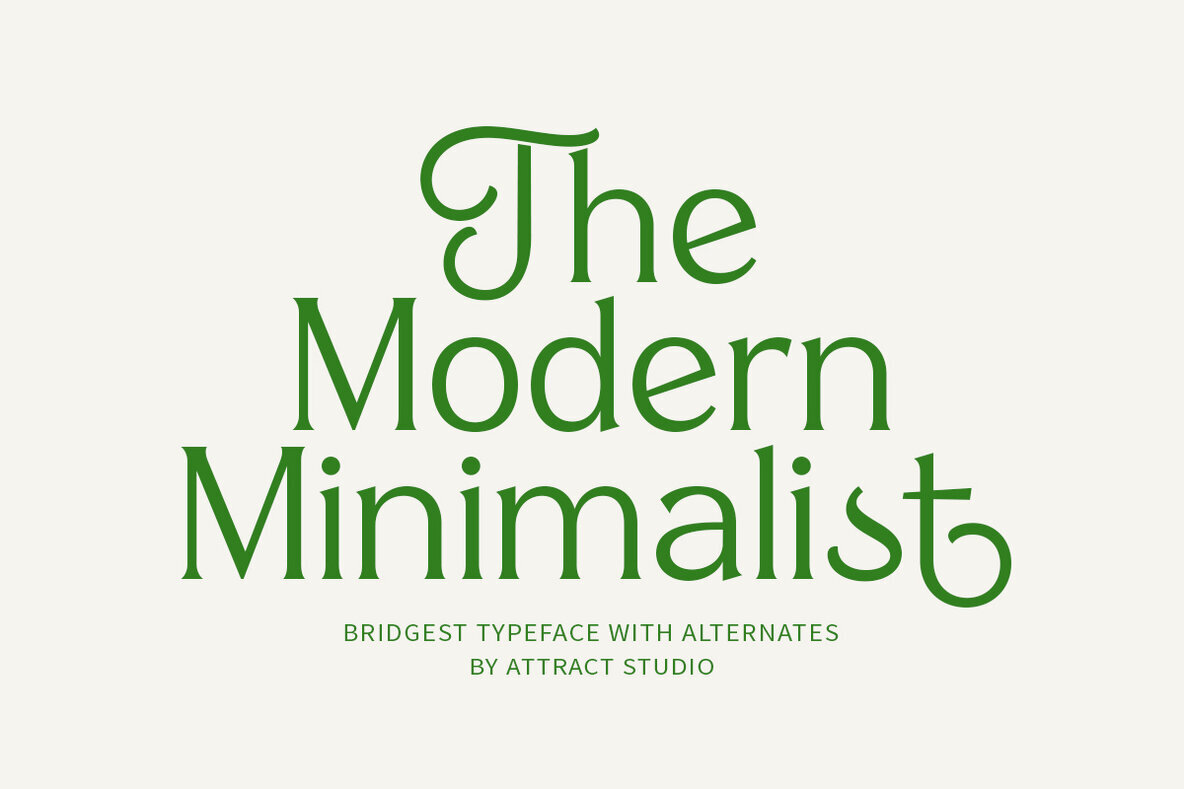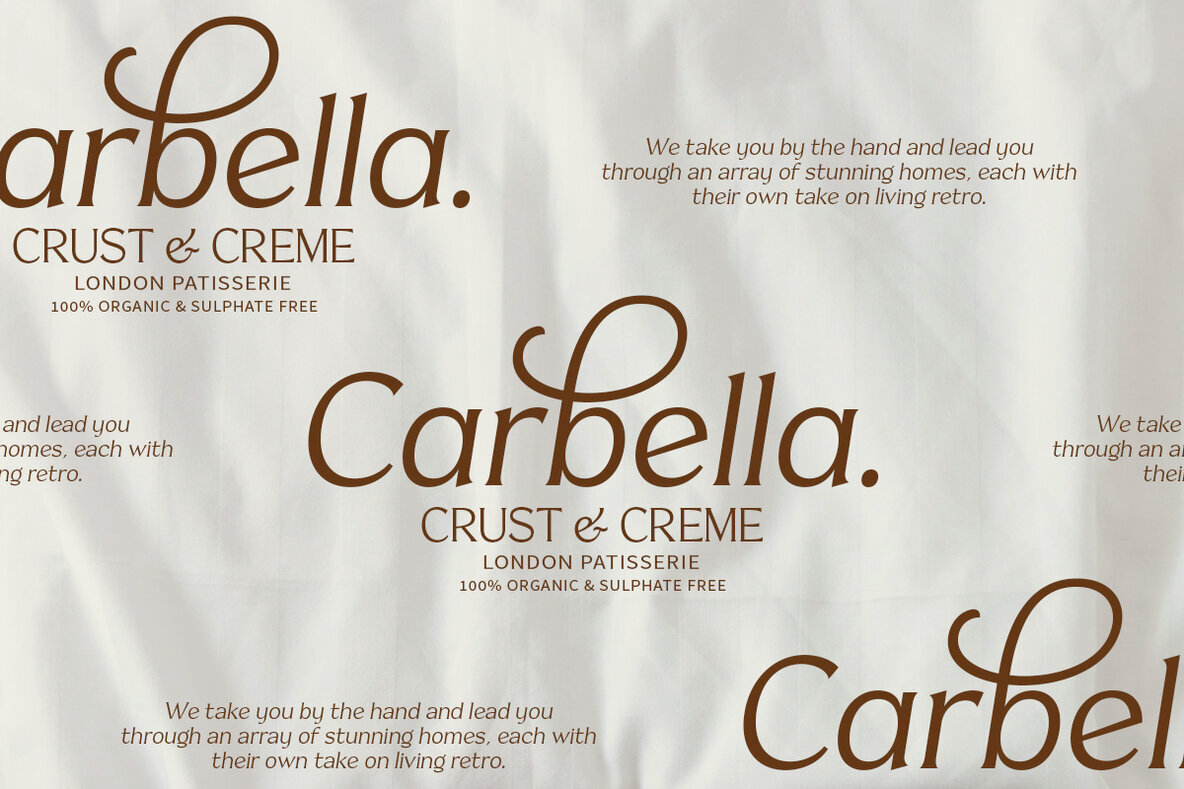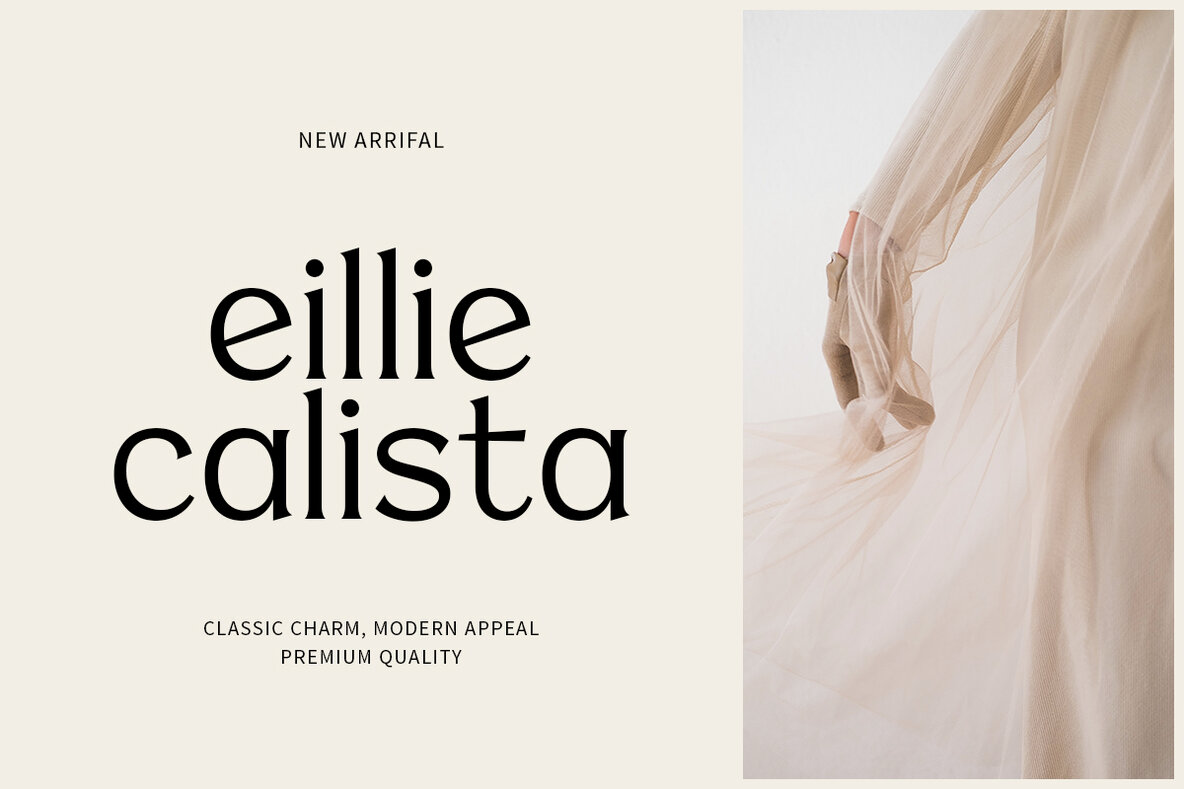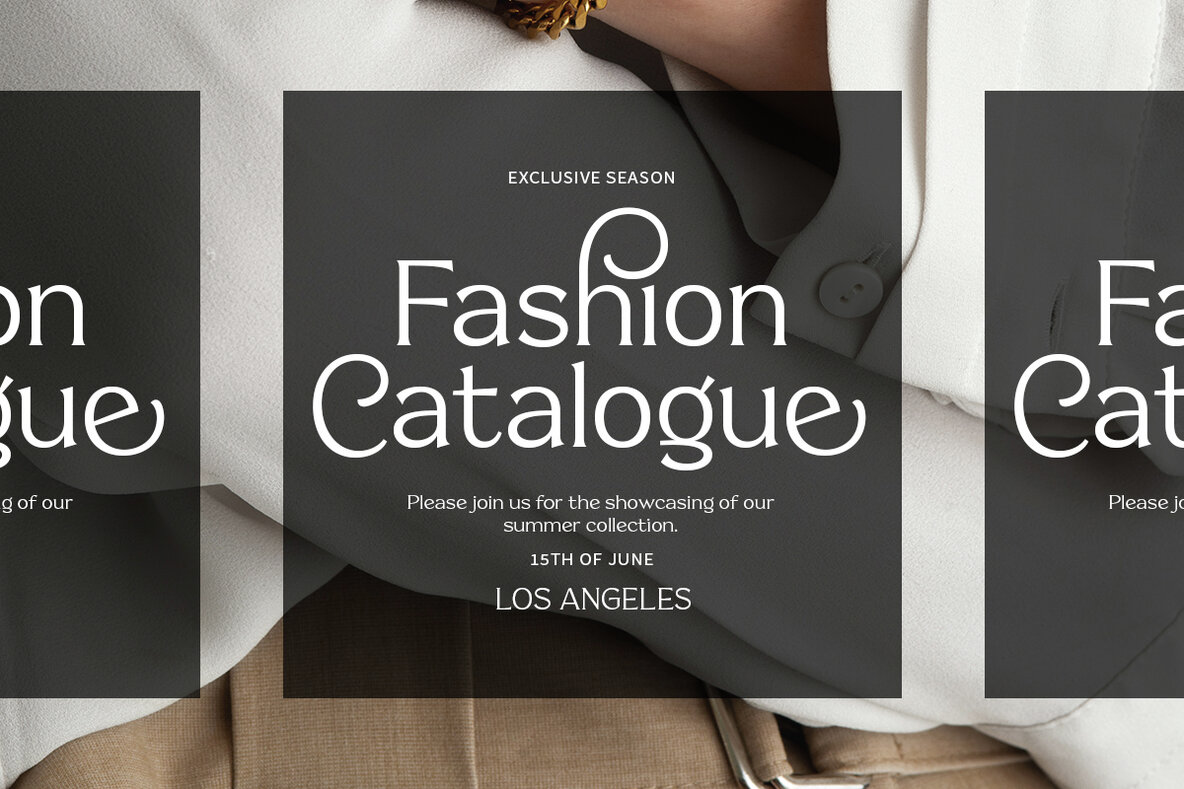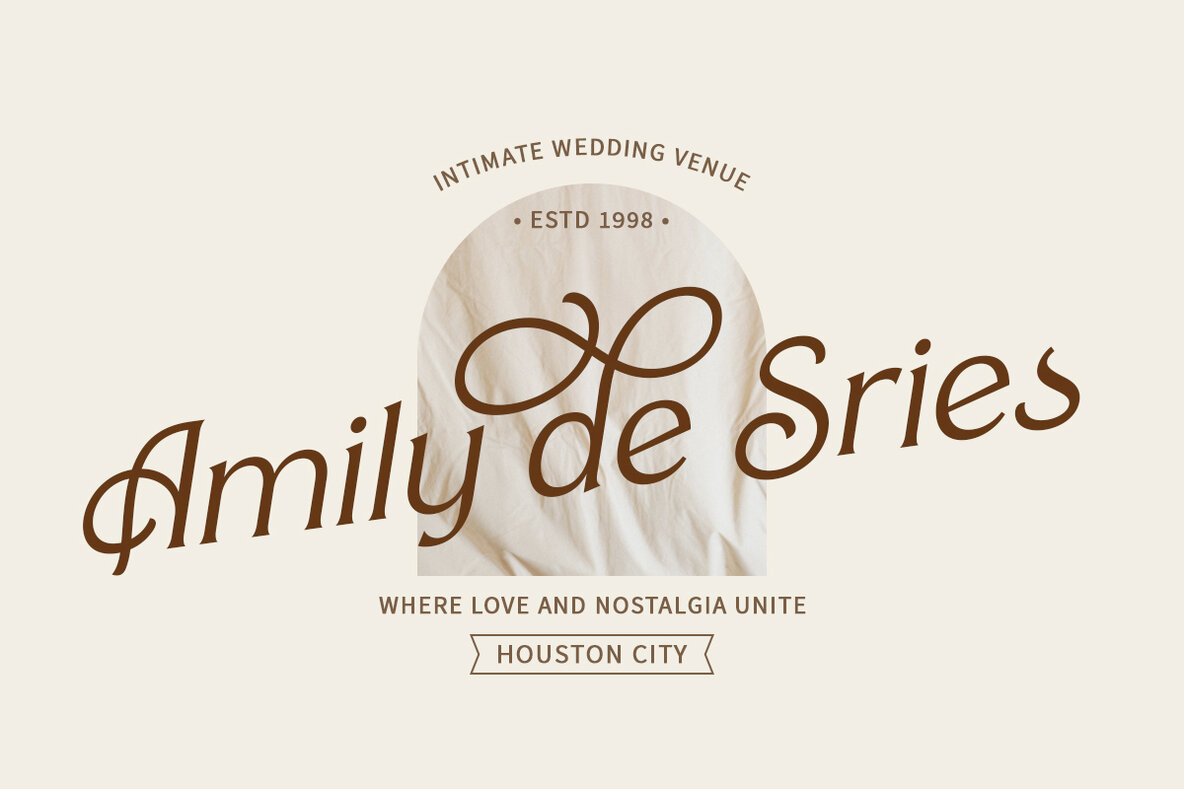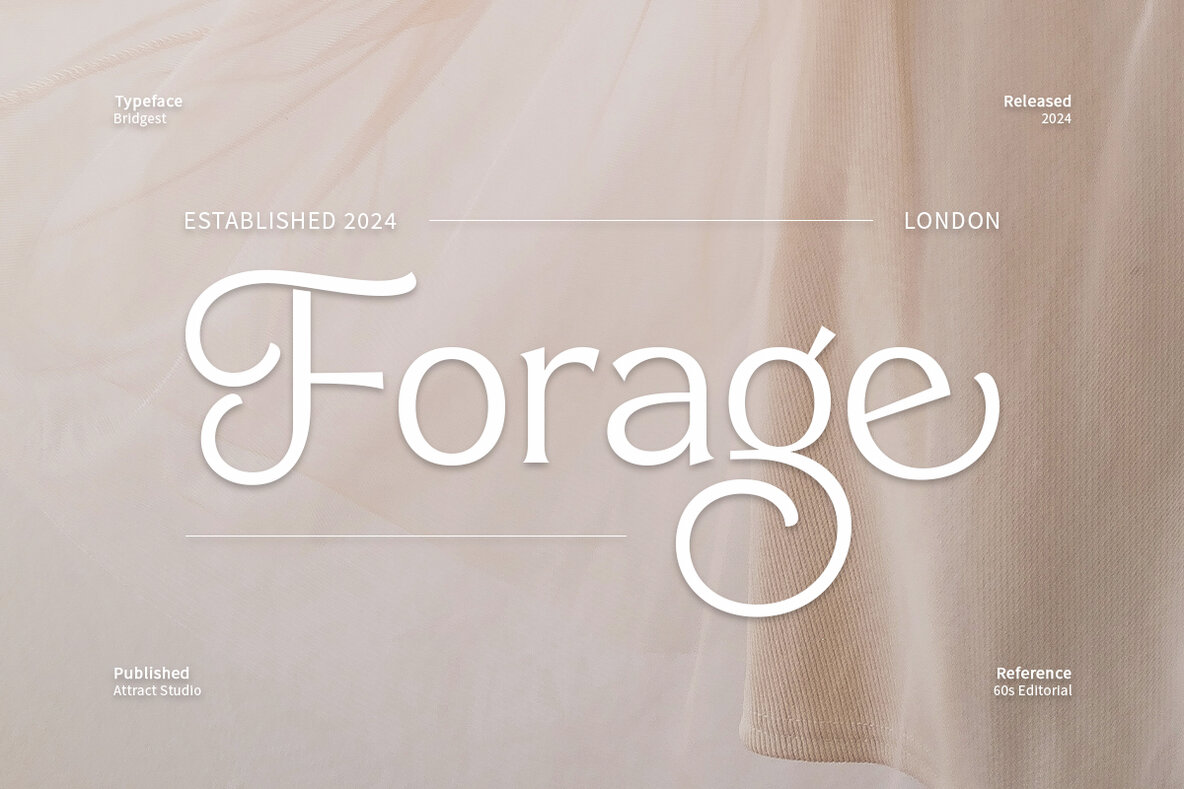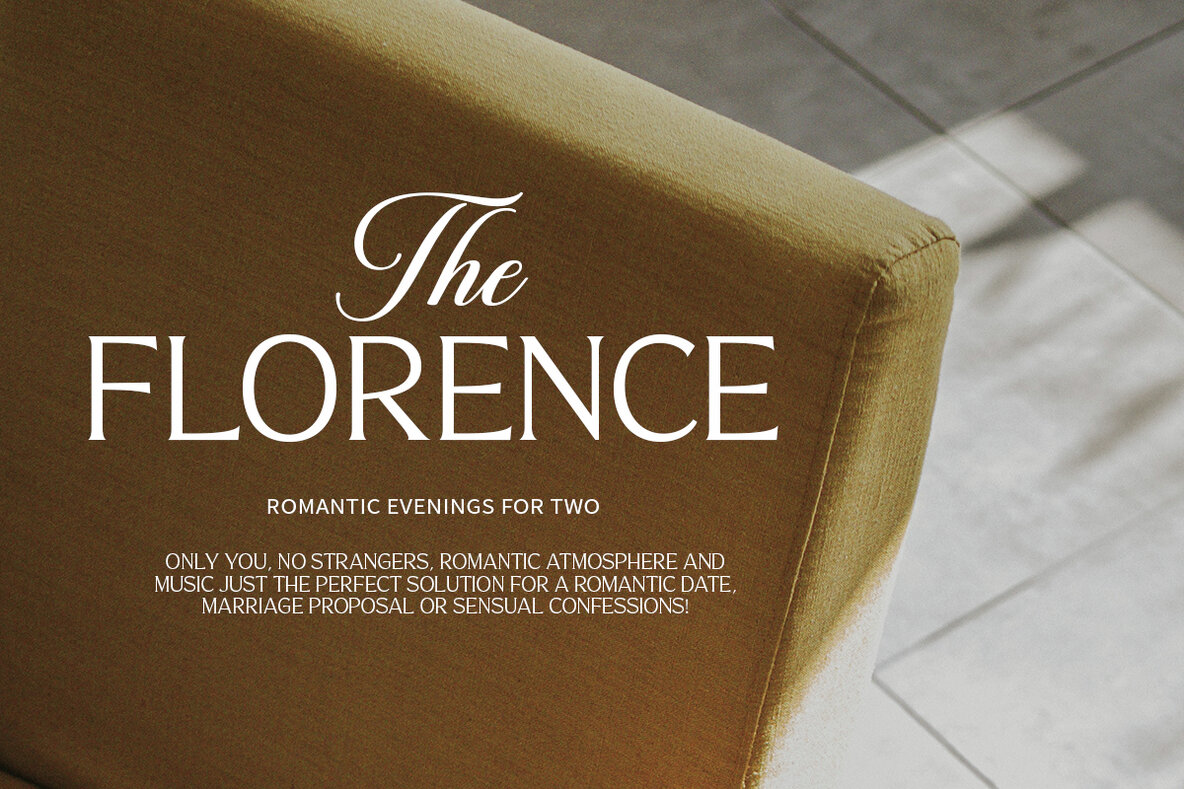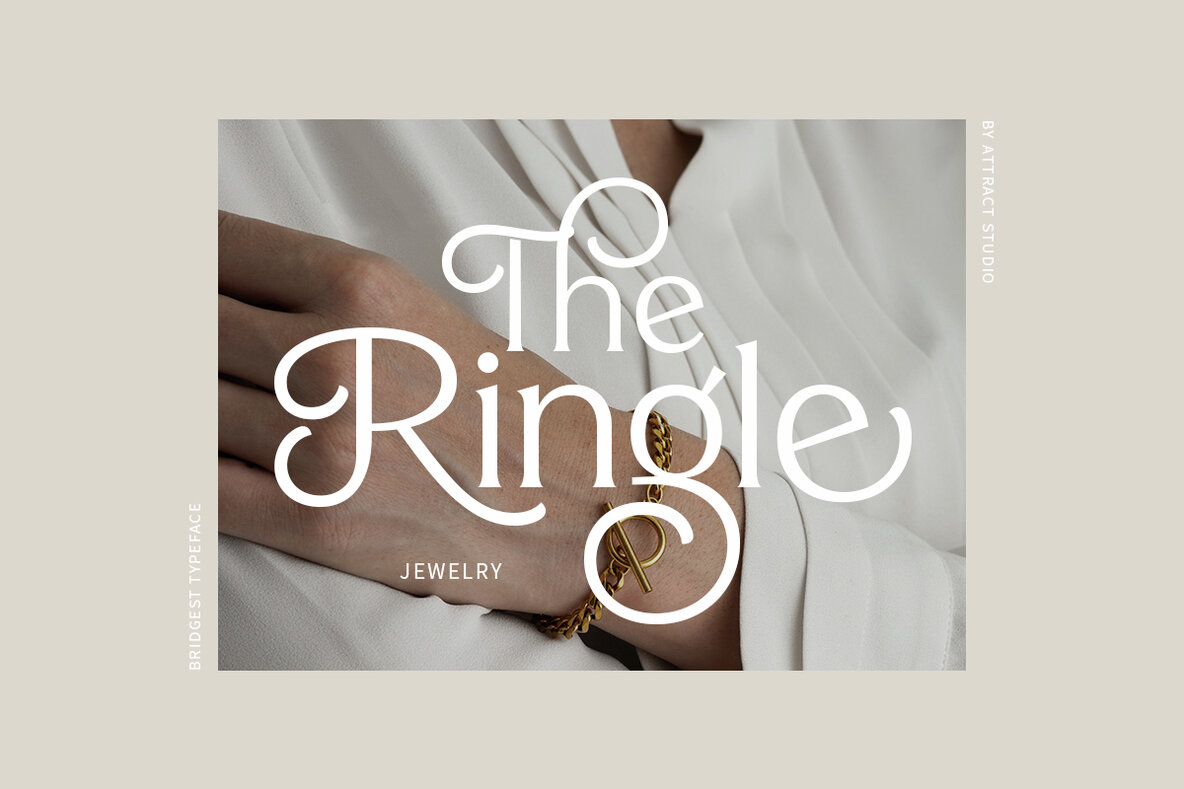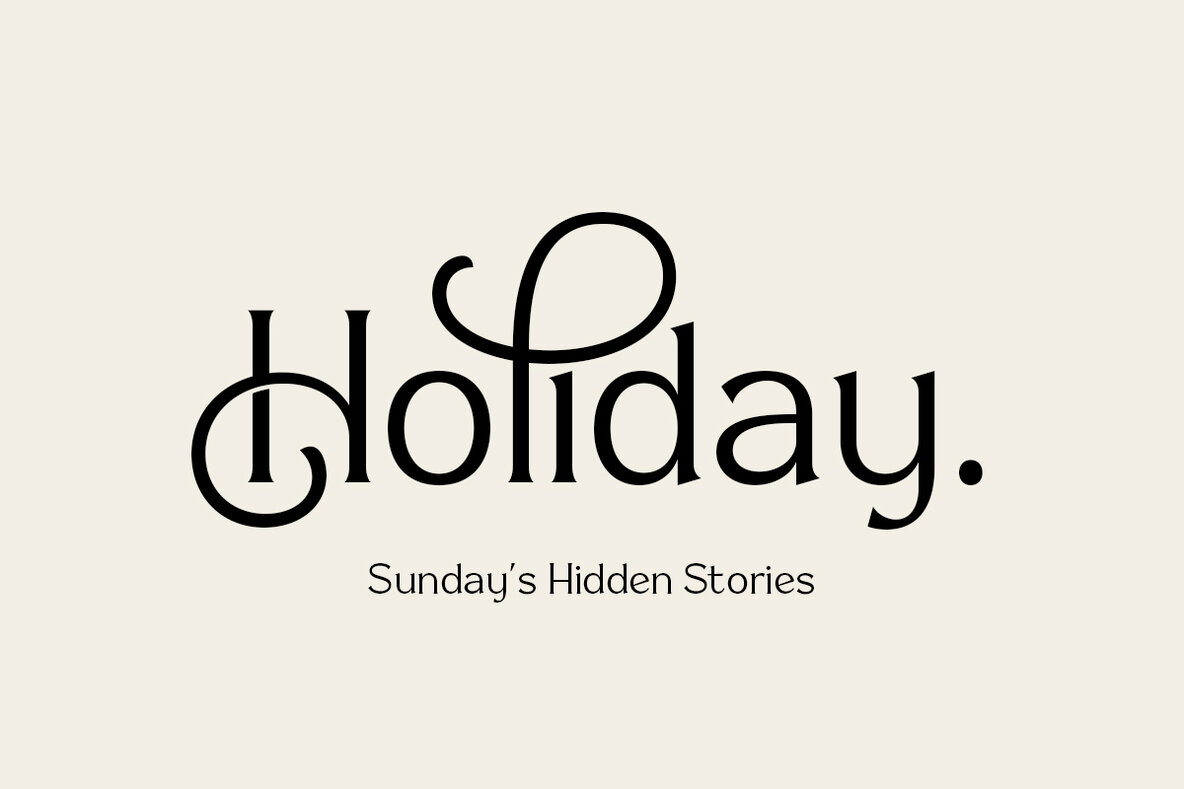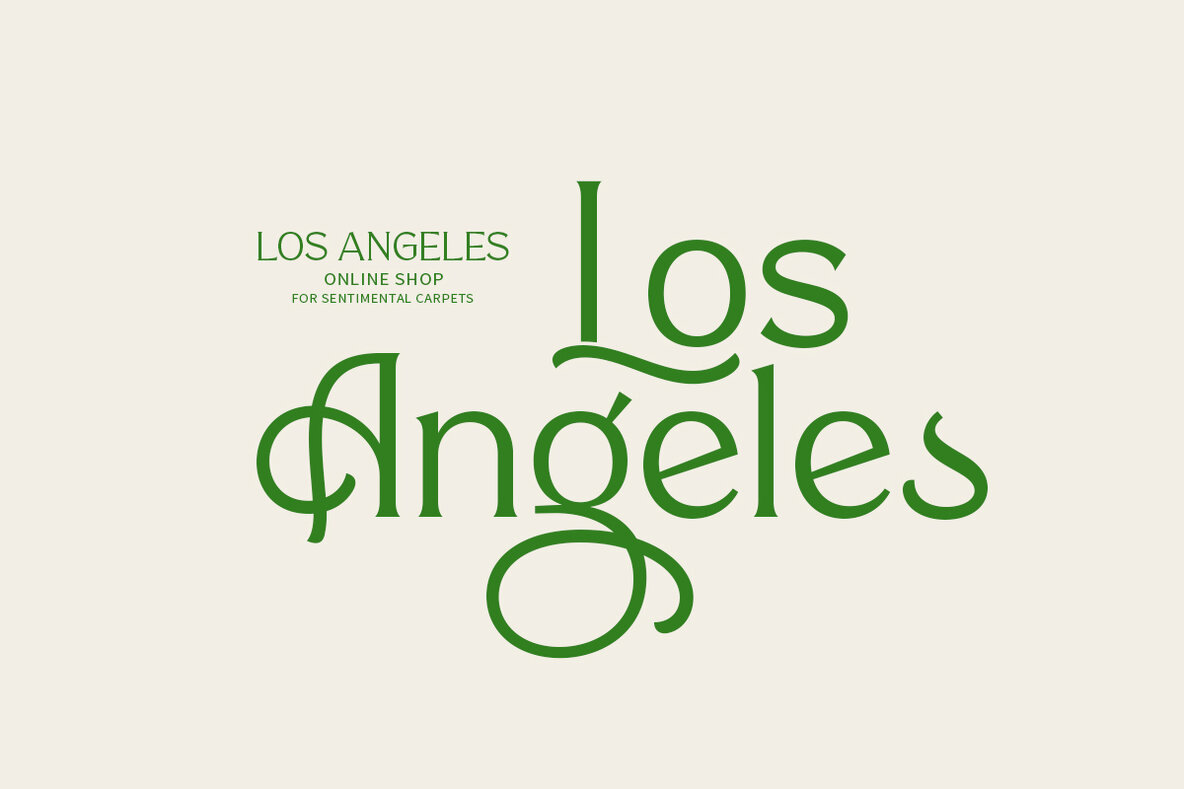
Bridgest Font
Bridgest is a distinguished serif font crafted by Attract Studio, blending classic elegance with modern design sensibilities. Designed with a focus on quality, Bridgest offers a wealth of stylistic options, featuring numerous alternatives from simple styling to elaborate swashes and substitutes. Thanks to its adaptability, Bridgest is suitable for a broad spectrum of design projects. Whether it's for blog graphics, stylish quotes, wedding stationery, or art prints, this font seamlessly complements a variety of creative endeavors.Bridgest: Classic Meets Modern Serif